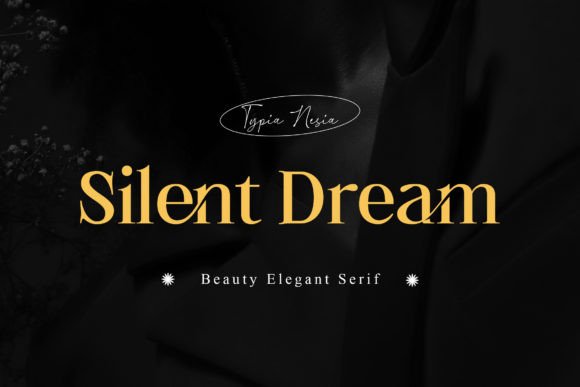
Behold the Silent Dream Font, an extraordinary creation by Typia Nesia, a serif font family that will captivate your imagination and elevate your designs to new heights. Enter the world of visual storytelling with Silent Dream, the ultimate font for comic books. Dive into its graceful curves and delicate strokes that dance across the page, perfectly capturing the essence of your characters and storylines.
With Silent Dream, every word becomes a brushstroke, every line a masterpiece. Its timeless appeal transcends time, making it the perfect choice for contemporary and classic comic books alike. Its sophisticated look grants an air of elegance and refinement, setting your creations apart from the ordinary.
Indulge in the meticulous craftsmanship of Silent Dream, where each glyph is a testament to artistic brilliance. Its beauty lies in its versatility, effortlessly adapting to various design styles. Experiment with different weights, from light and airy to bold and dramatic, to create visual depth and evoke emotions effortlessly.
Step into the realm of visual intrigue with Silent Dream, where your imagination takes center stage. Unleash the power of storytelling through the expressive lines of this exquisite font. Capture the essence of your characters, their triumphs, their struggles, and their dreams, with a font that speaks volumes even in silence.
Unlock the potential of Silent Dream today and embark on a creative journey like no other. Let your designs flourish with an air of sophistication and charm, all while immersing your readers in a world of captivating storytelling.